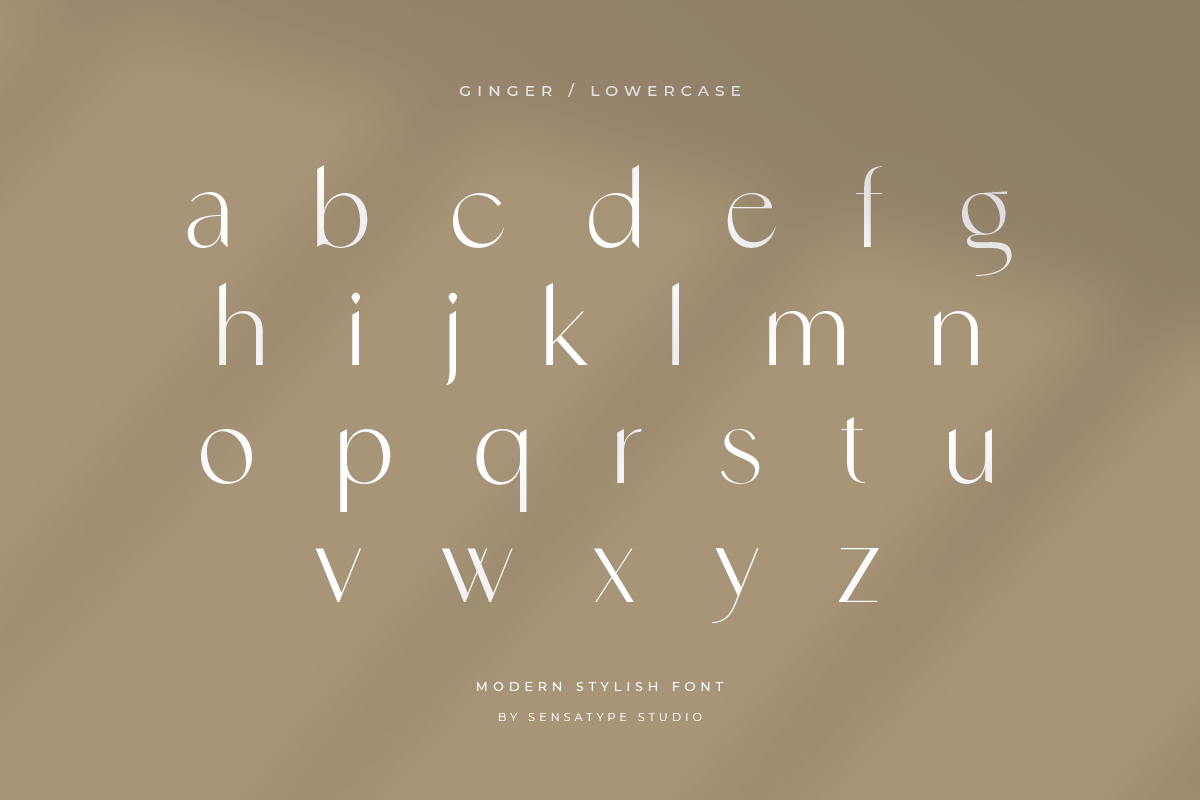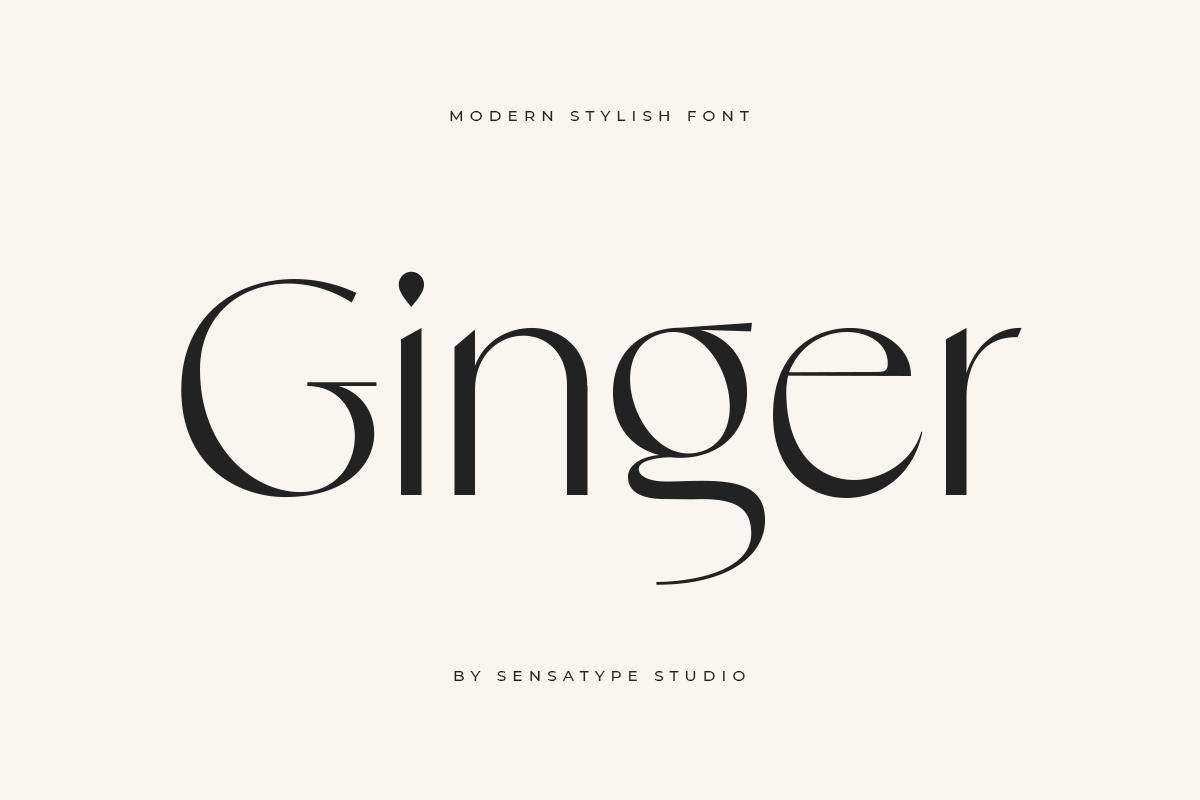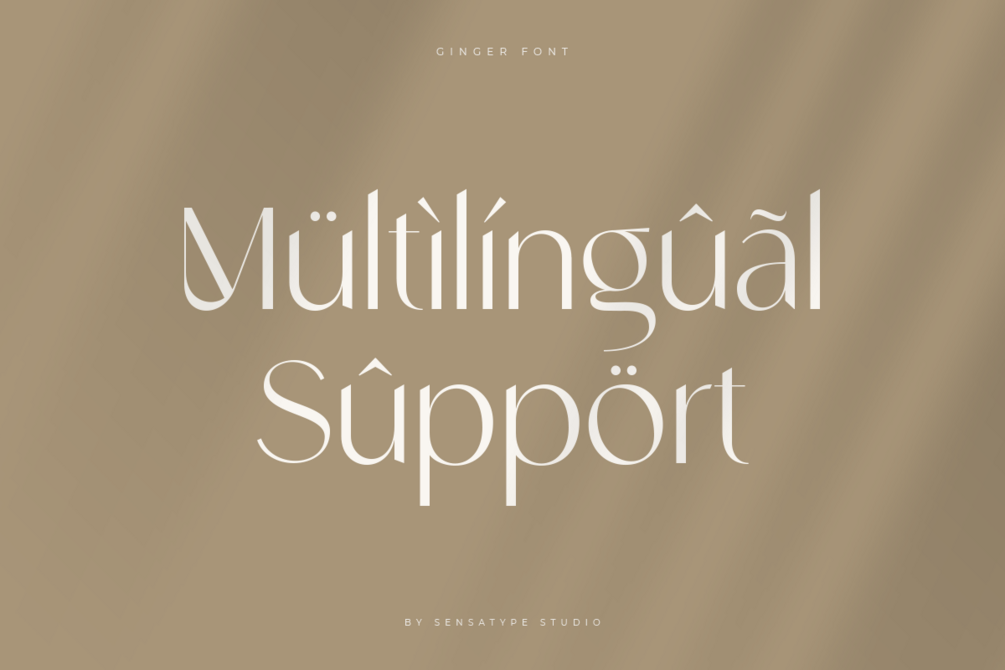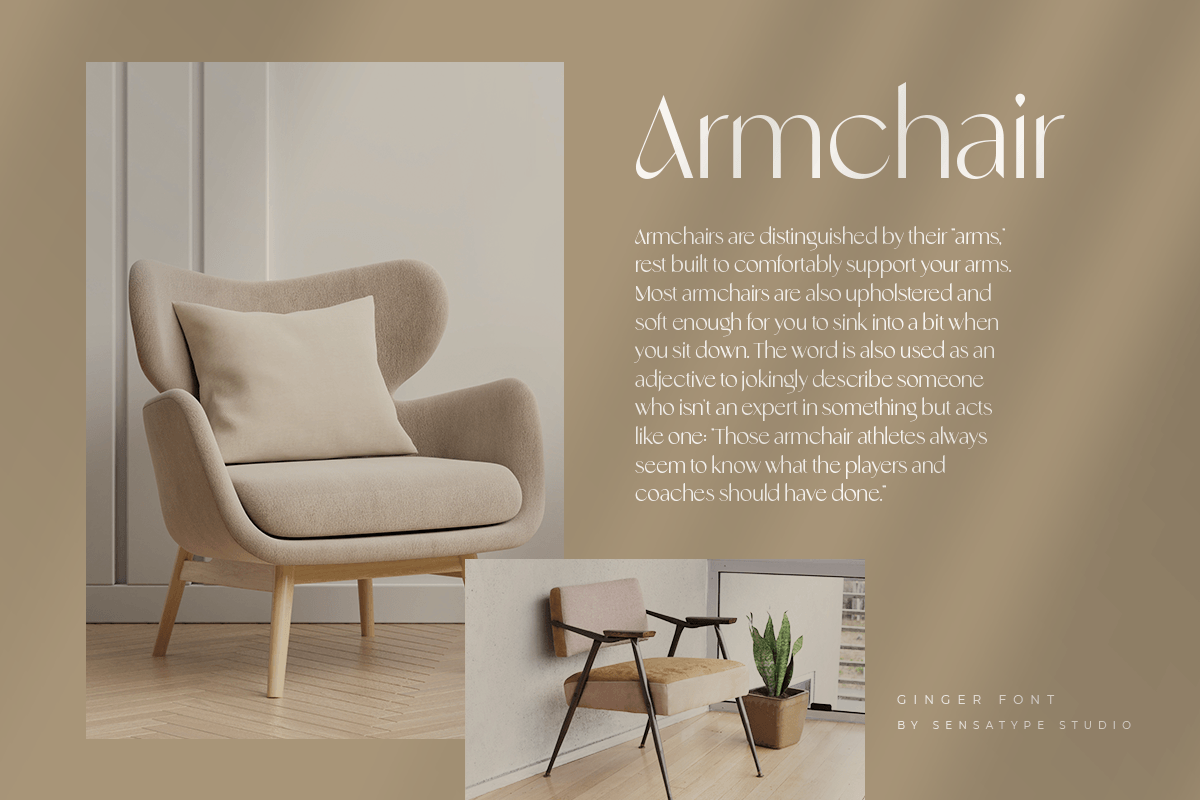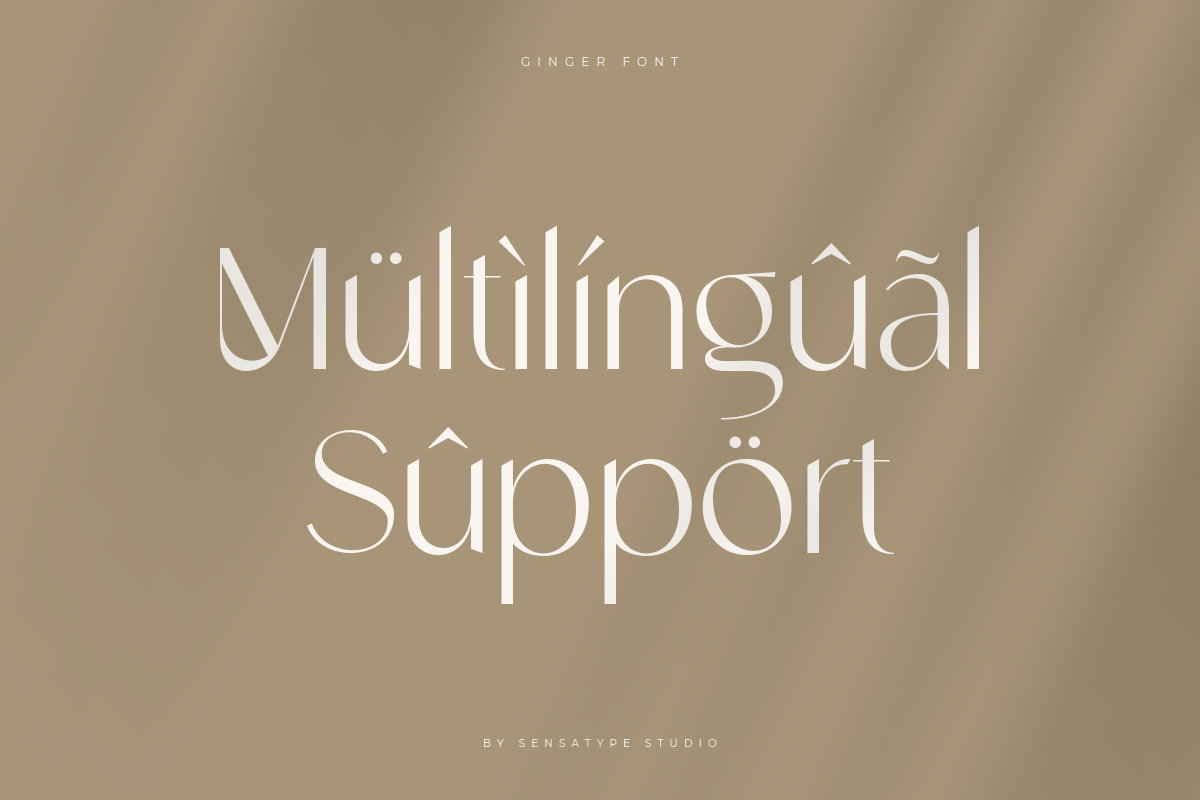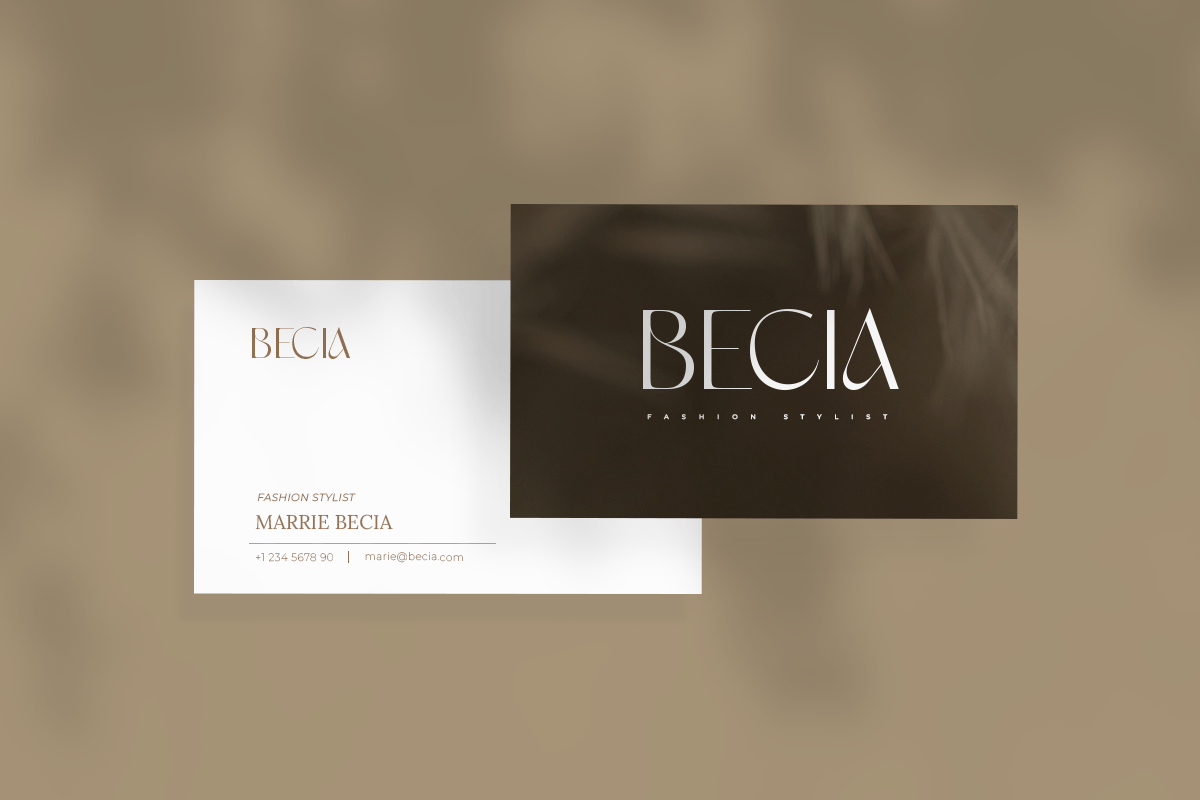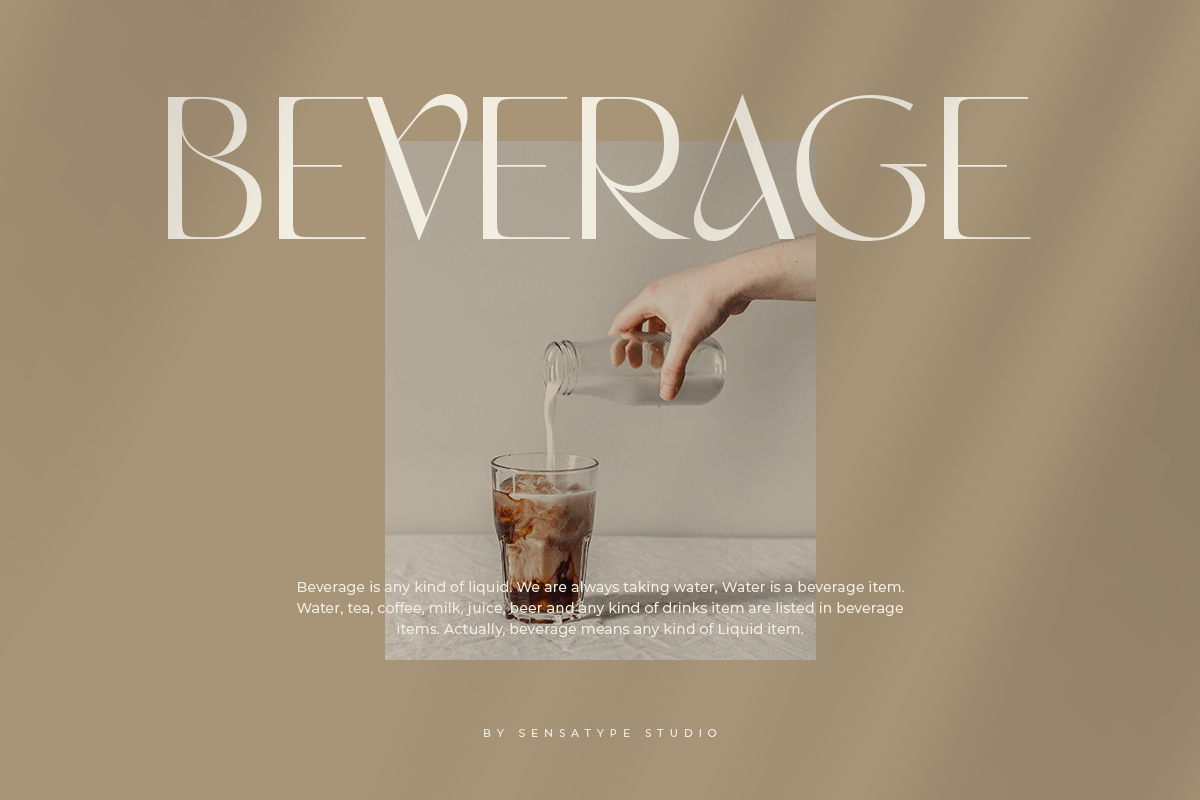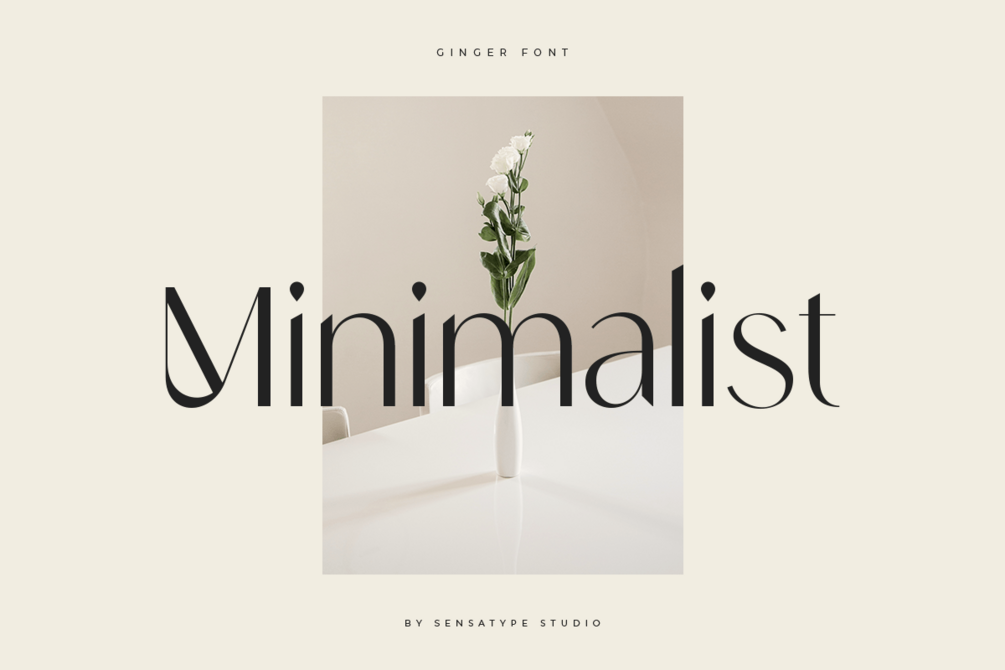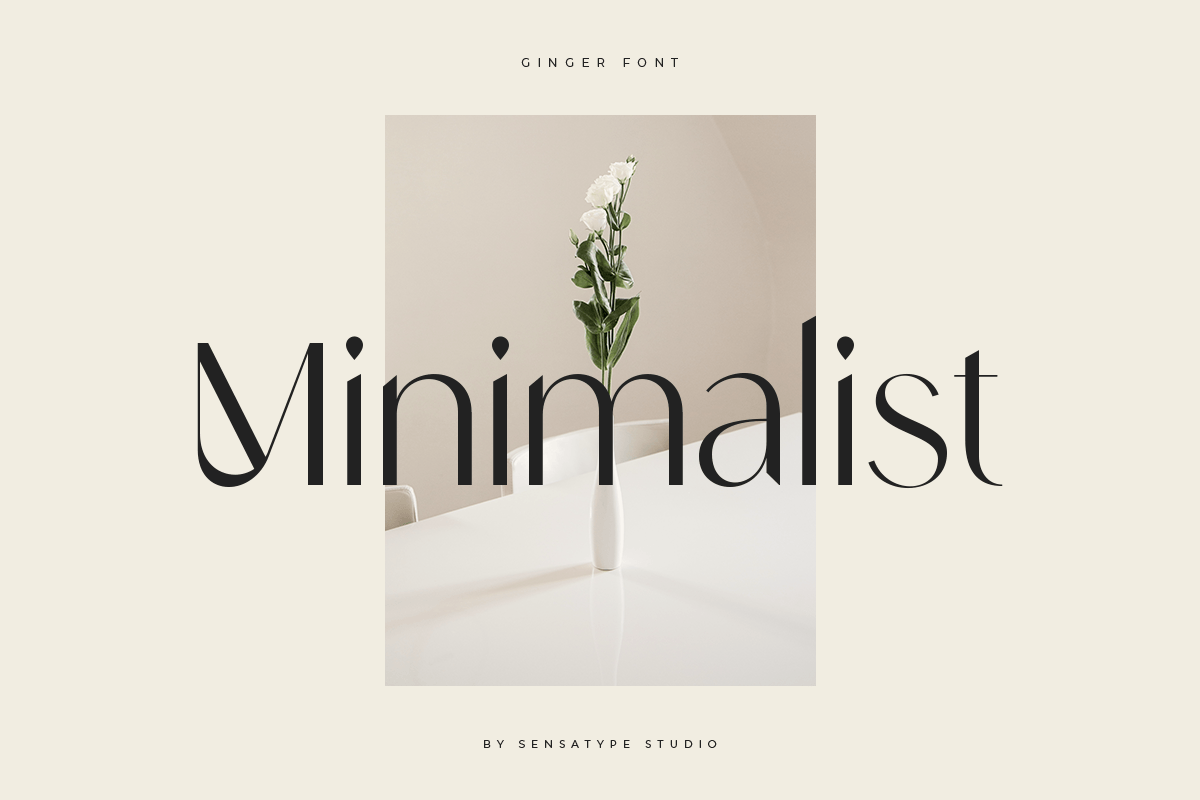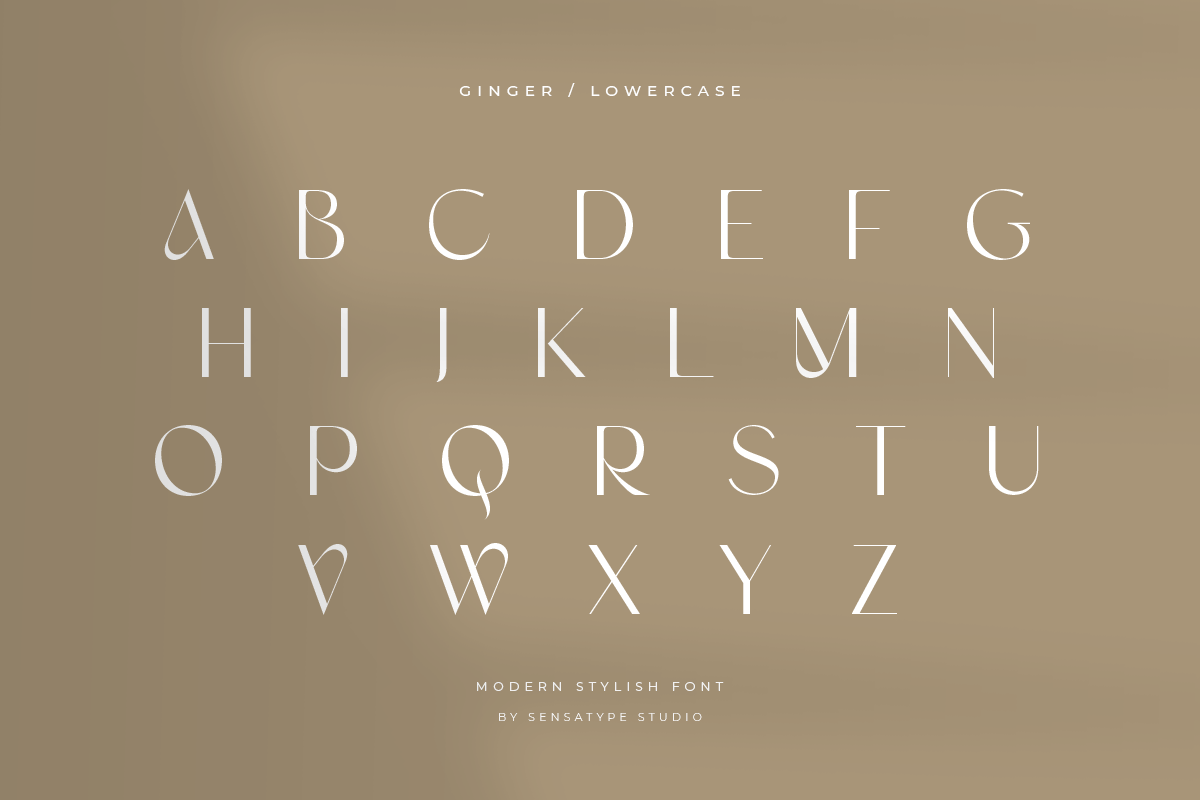
Ginger - Modern Stylish Font
Ginger is a modern stylish font designed to elevate your creative projects with elegance and flair. Ideal for branding, logos, packaging, social media, and editorial design, it combines sleek lines with a refined aesthetic.
With carefully crafted letterforms, Ginger offers clarity, versatility, and sophistication, making it perfect for both digital and print applications.
Ginger – Modern Stylish Font Features
• Sleek and modern character set
• Ideal for branding, logos, and stylish designs
• Uppercase, lowercase, numerals, and punctuation included
• OpenType features for extra versatility
• Multilingual support